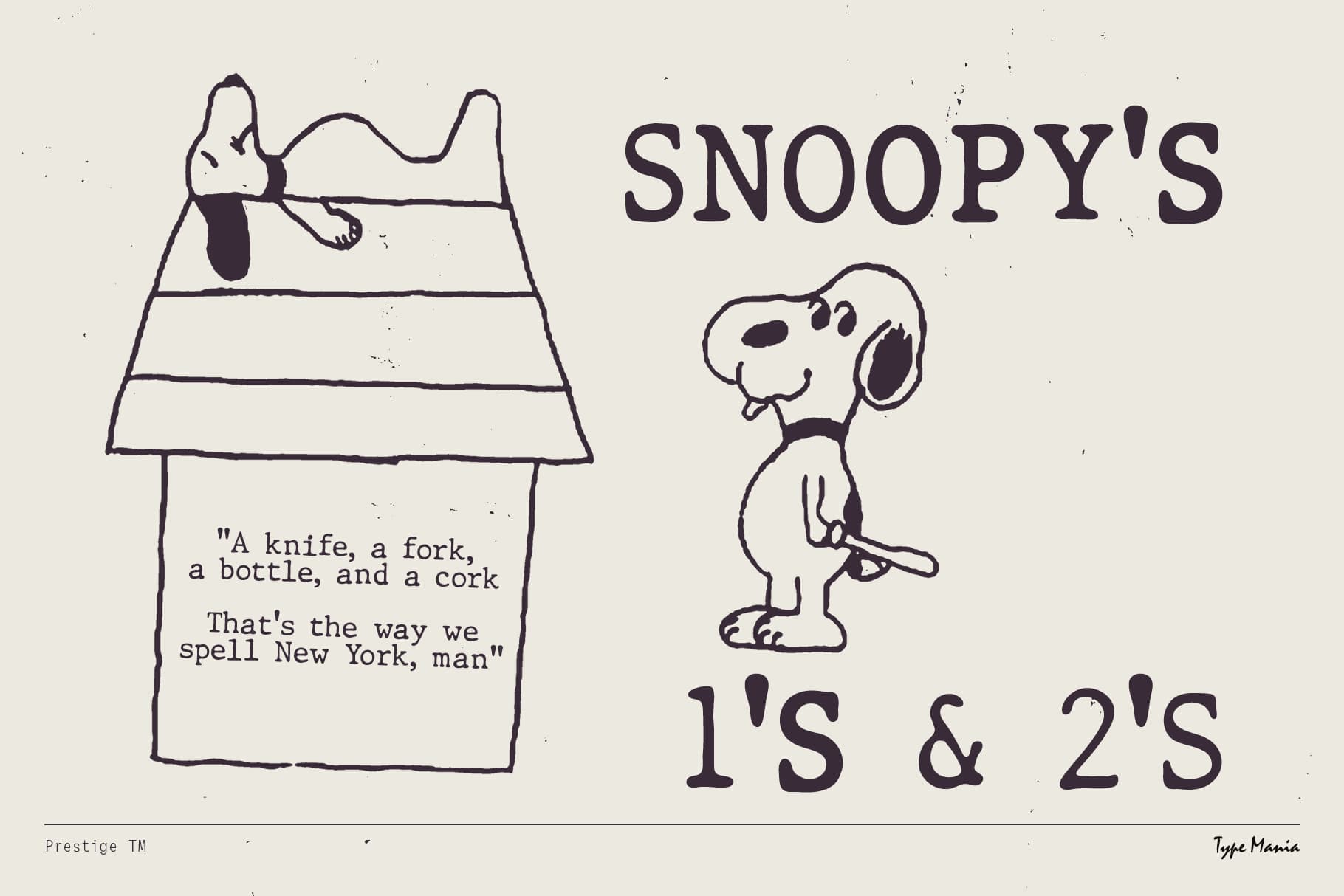
<p><strong>Prestige TM</strong> is a sans serif typeface rooted in mid-century typeball machines. It has distressed throwback shapes, but introduces a dynamic edge: its three stylistic sets rotate automatically, creating the same irregular vibe as ink striking paper.</p><p></p><p><strong>Zip includes</strong></p><ul><li><p>OTF file</p></li><li><p>TTF file</p></li><li><p>WOFF2 file</p></li></ul><p></p><p><strong>OpenType features</strong></p><ul><li><p>3 stylistic sets</p></li><li><p>The font is programmed to automatically shift between the stylistic sets</p></li></ul><p></p><p><strong>Languages</strong></p><ul><li><p>Basic Latin</p></li><li><p>Western European</p></li><li><p>Euro</p></li><li><p>Central European</p></li><li><p>Pan African Latin</p></li></ul><p></p><p><em>Graphic Design is Easy (with Type Mania)® </em></p>